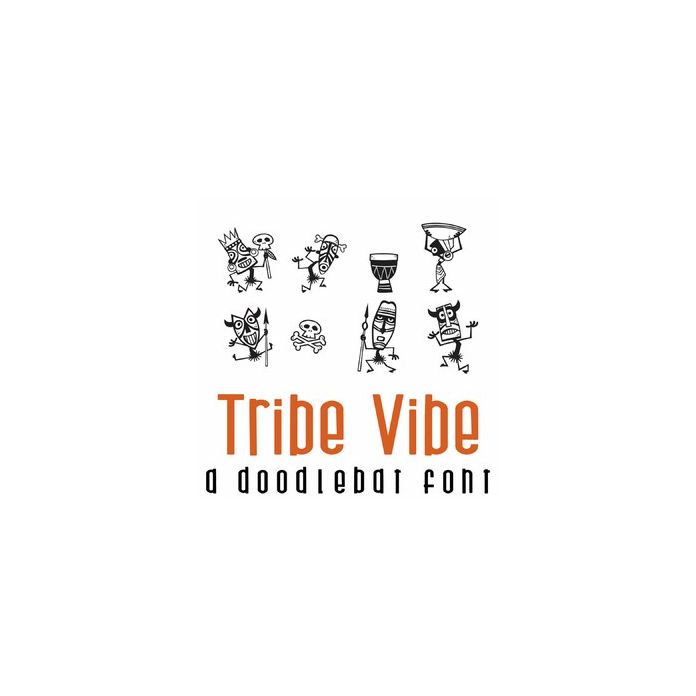
This fun doodlebat font features 26 tribal characters and elements. Perfect for decorations, gifts, decor, planner stickers, scrap book pages and more!